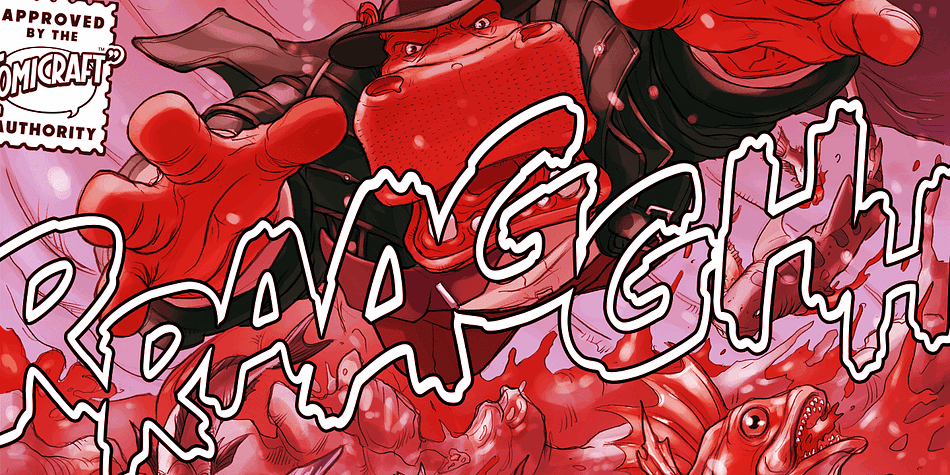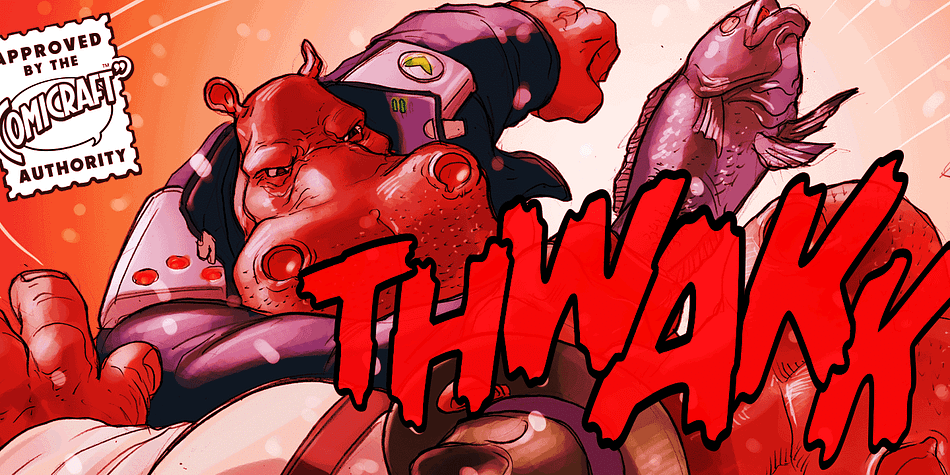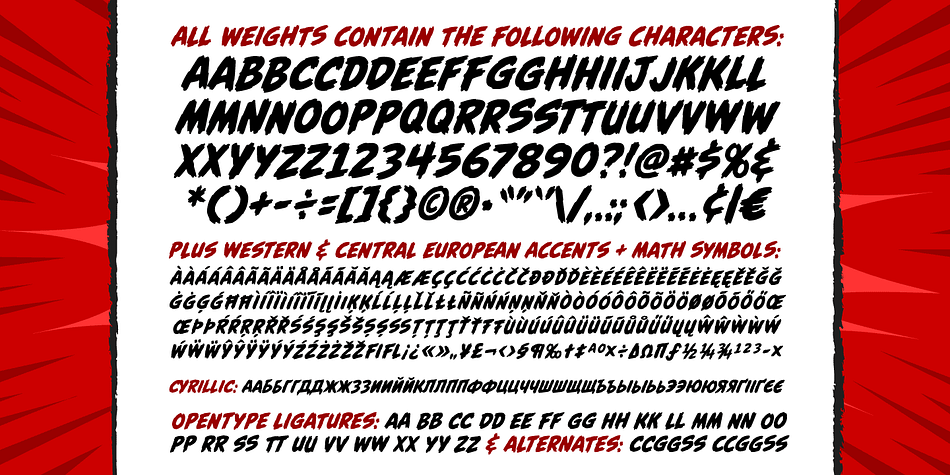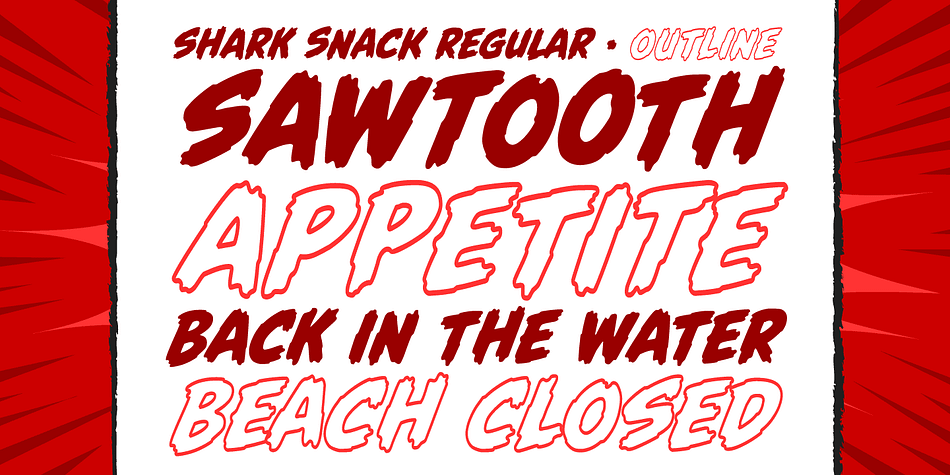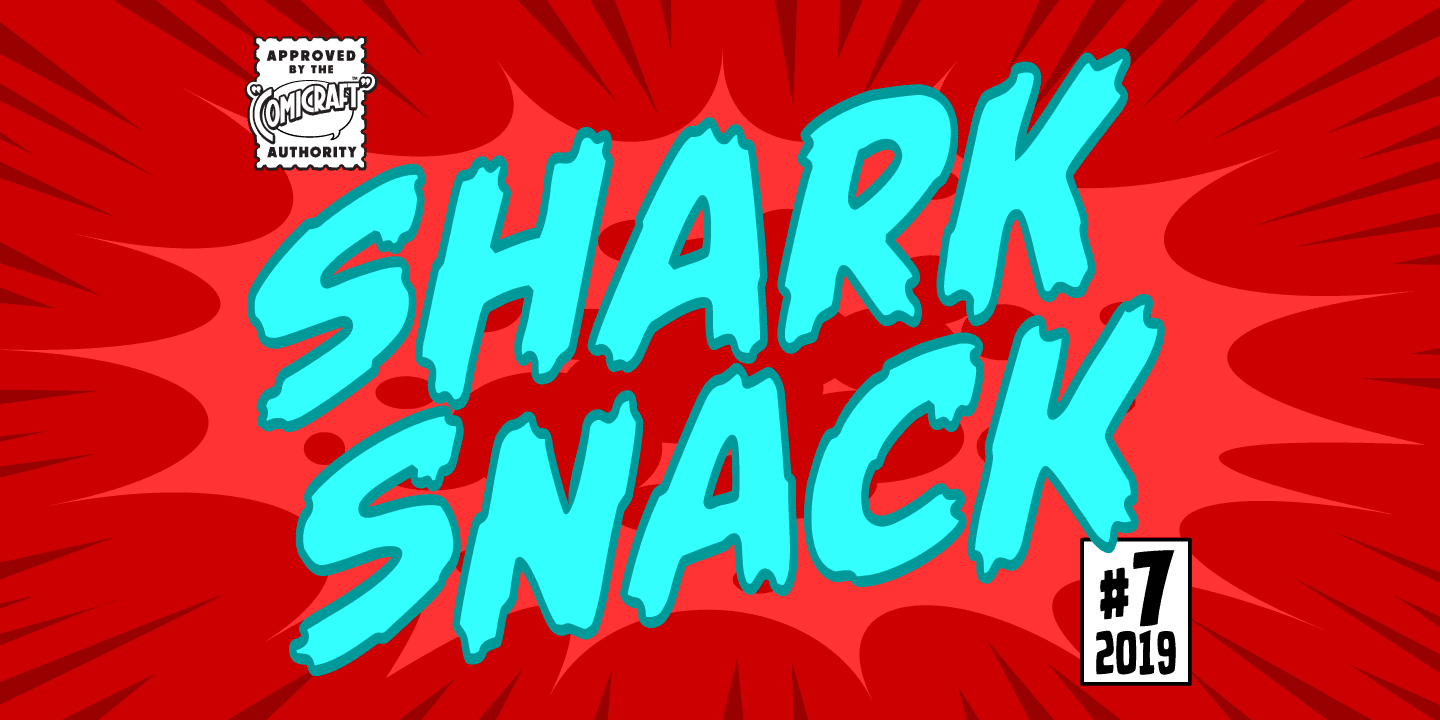
Designed by John Roshell, Shark Snack is a comic and hand display font family. This typeface has two styles and was published by Comicraft.
Dumm DUM. Duh dum duh dum DUMMMM… Just when you thought it was safe to get back in the water, this font surfaces to take one last bite out of your summer vacation skinnydip! Scream and scream again — it won’t do you any good, SHARKSNACK is rough and ready to EAT YOU ALIVE!
It’s too late to close the beaches, Chief Brody, this particular set of saw tooth letters has already consumed Dracula, the Werewolf, the Frankenstein Monster and any number of 70s comic book characters foolish enough to dip a toe in its maw!
Two weights (Solid & Outline) with alternate uppercase characters, Western & Central European accents and Cyrillic characters.